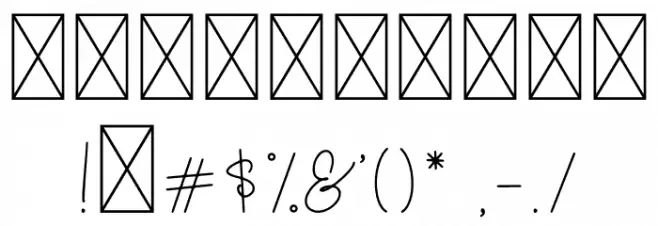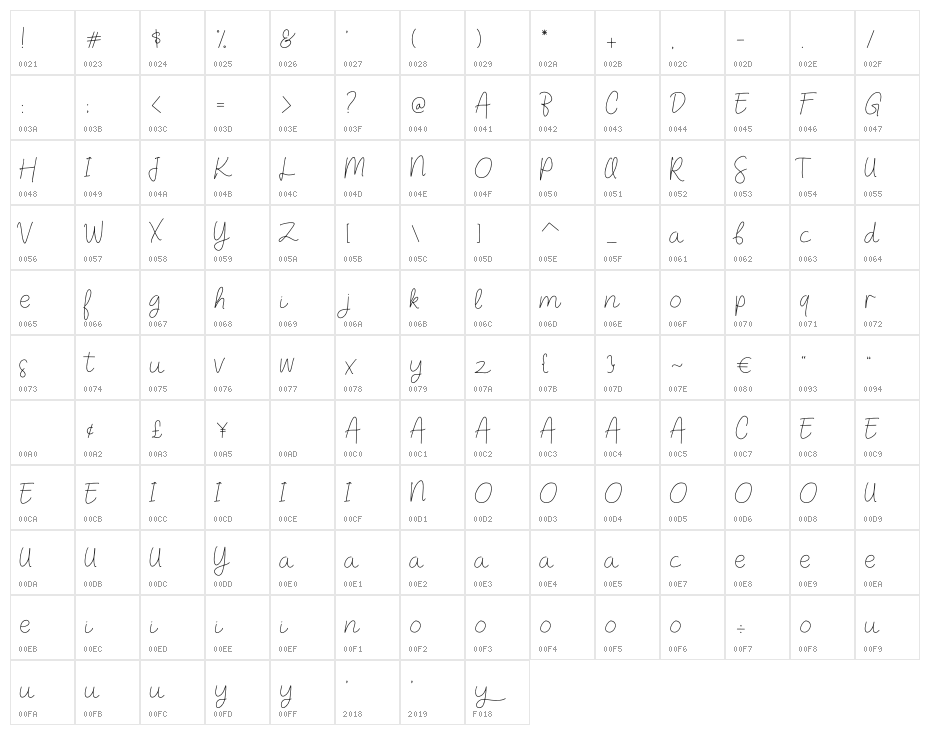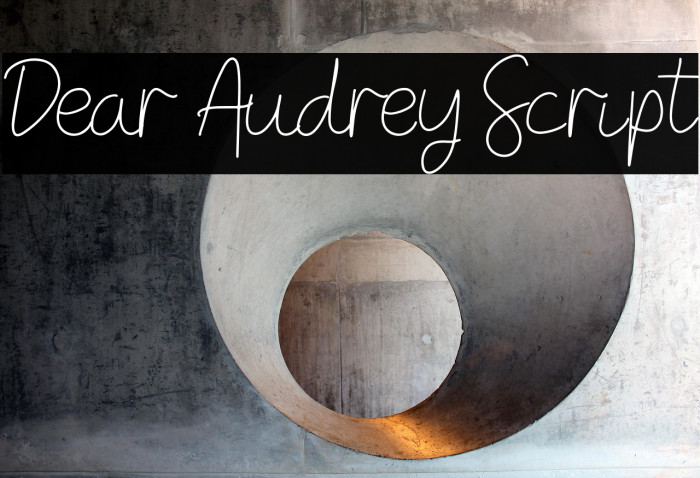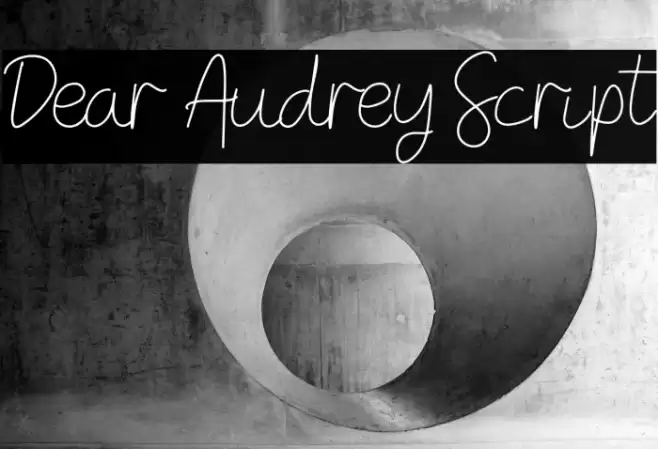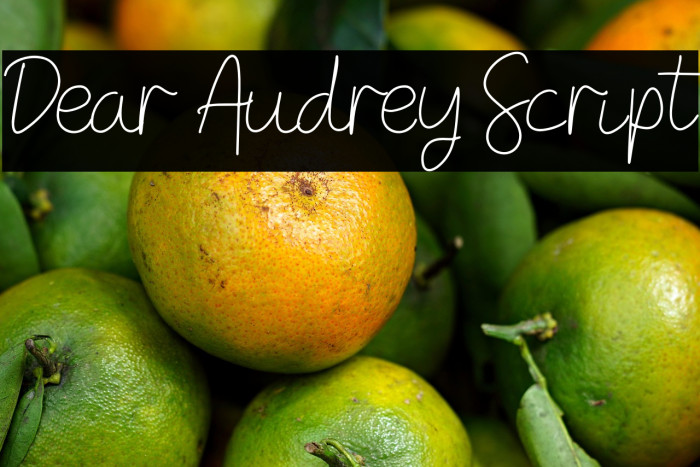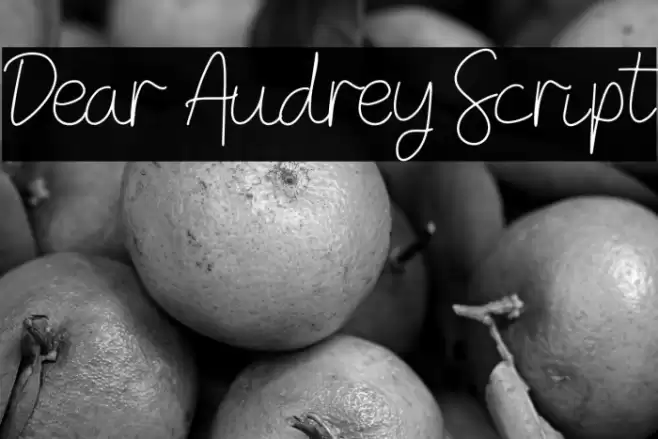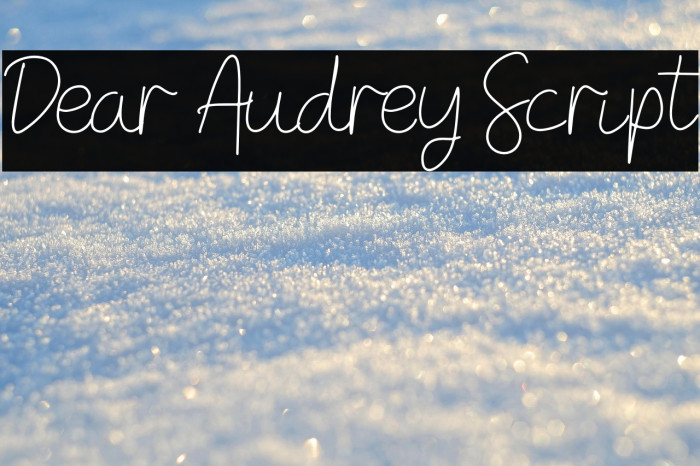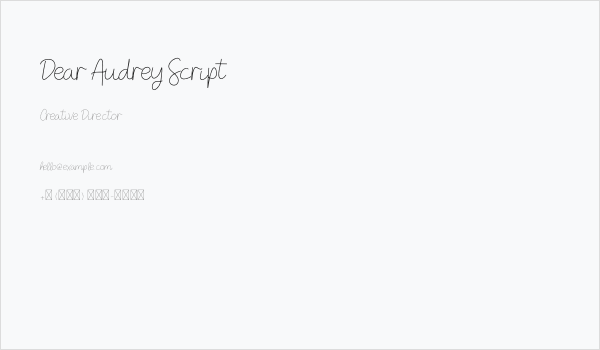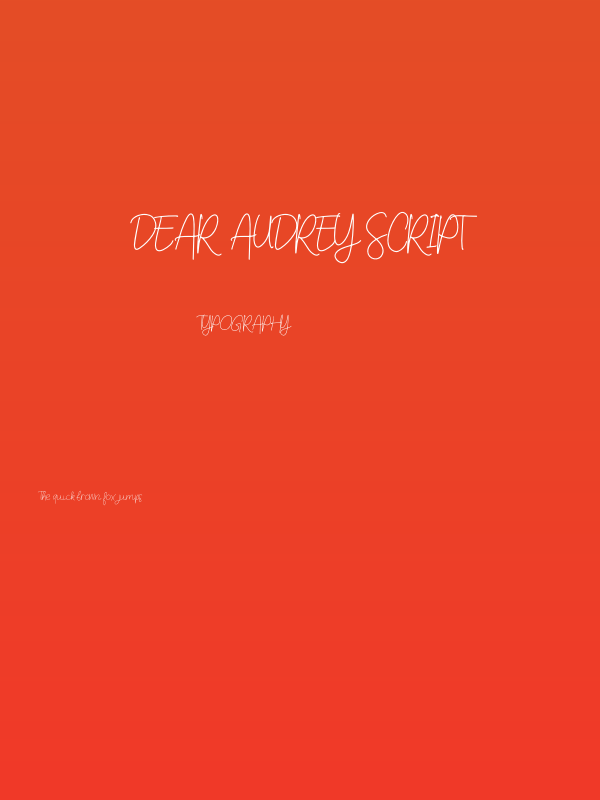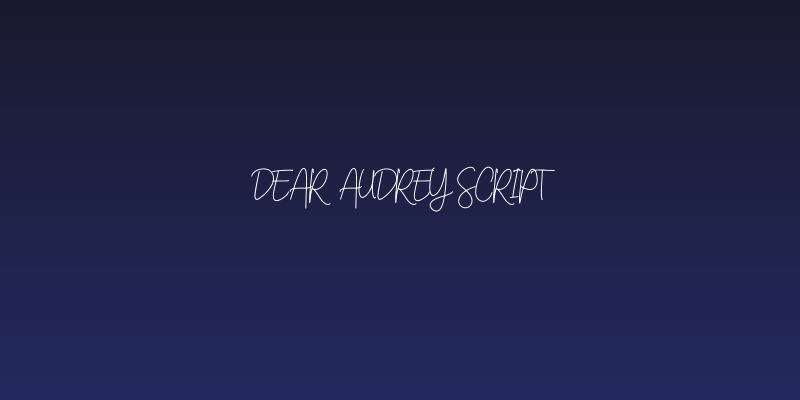
Dear Audrey Script Font
Dear Audrey Script Description
This script font exudes elegance and fluidity, characterized by its delicate, flowing strokes that mimic the natural motion of handwriting. The uppercase letters are tall and slender, with graceful loops and curves that add a touch of sophistication. The lowercase letters maintain a consistent style, with smooth connections between characters, enhancing the script's seamless appearance. The font's overall design is airy and light, making it ideal for conveying a sense of elegance and refinement. Its unique style is perfect for projects that require a personal touch or a handwritten feel.